Studio of Type Design and Typography cordially invites you to a public lecture by Jevgeniy Anfalov (Kyiv Type Foundry)
Kyiv Metro Fonts.
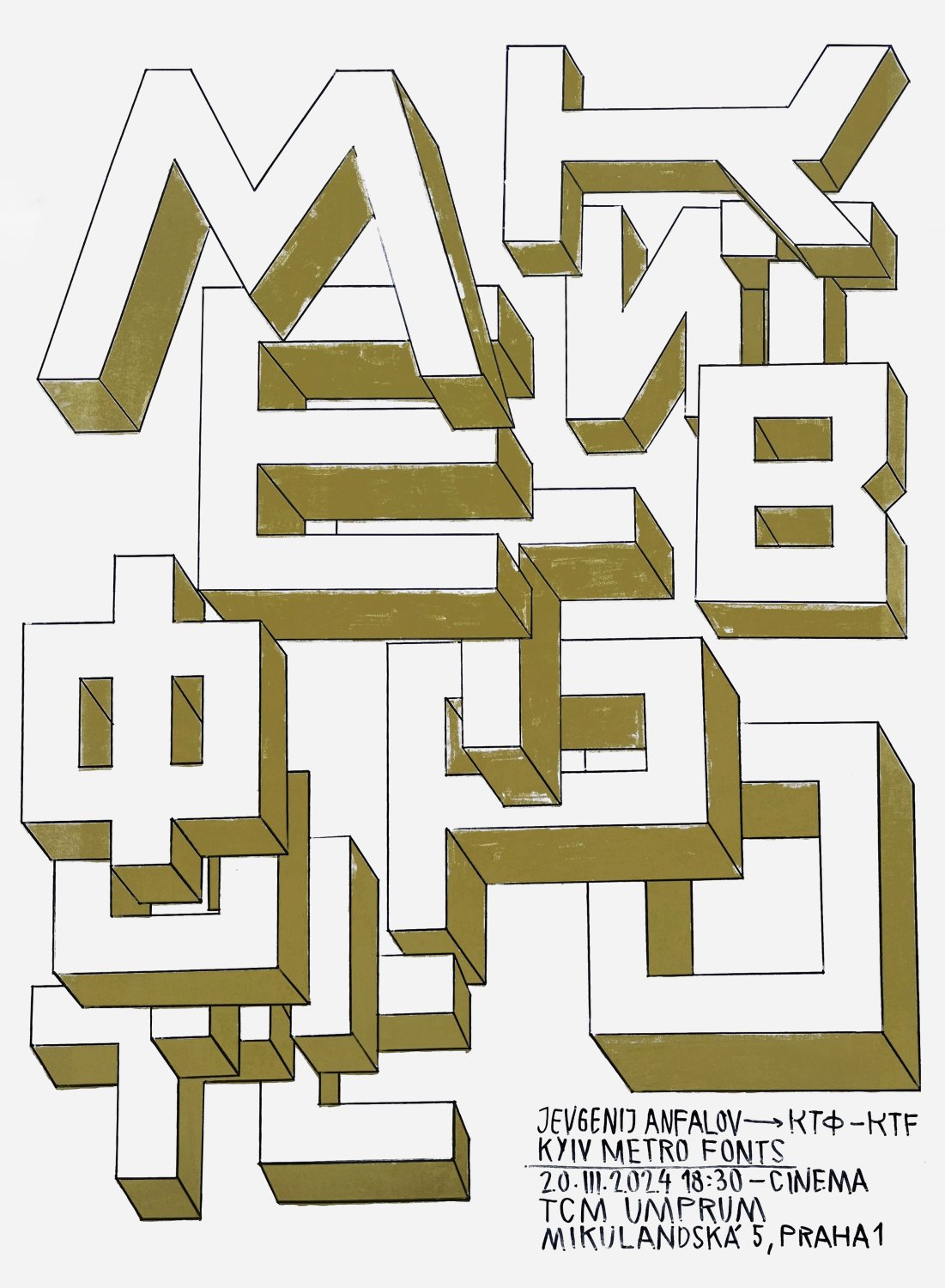
Echoing WWII events, in 2022 Kyiv Metro became the bomb shelter for thousands of its inhabitants. This sad fact is another big milestone in its rich history, which continues to be written. Built six decades ago, it carries 1.32 mln. passengers a day (2016) and is one of the most beautiful manmade creations in Ukraine. As part of station architecture, the letters of the Kyiv metro tell us a lot about its history. It's a book. You can read it in many directions. Exiting on each station, you'll notice different letterings. “Look at them, analyze and make fonts on their basis”, we told to our students in our summer 2023 workshop called “Kyiv Metro Fonts”.
Yevgeniy Anfalov is a designer based in Kyiv and Hannover. Born in Kyiv (Ukraine) in 1986, moved to Germany in 2003. He studied Visual Communication at Hannover University of Applied Sciences and Arts, and he launched his design practice in 2010. From 2015 to 2017, he completed the MA at ECAL (Lausanne), with a major in Type Design under Francois Rappo and Kai Bernau. His first published font is LL Heymland on Lineto in 2020. Other releases: KTF Jermilov, KTF Rublena, and KTF Compact. Upcoming releases: LL Chernobyl, FSL Alt Medieval.